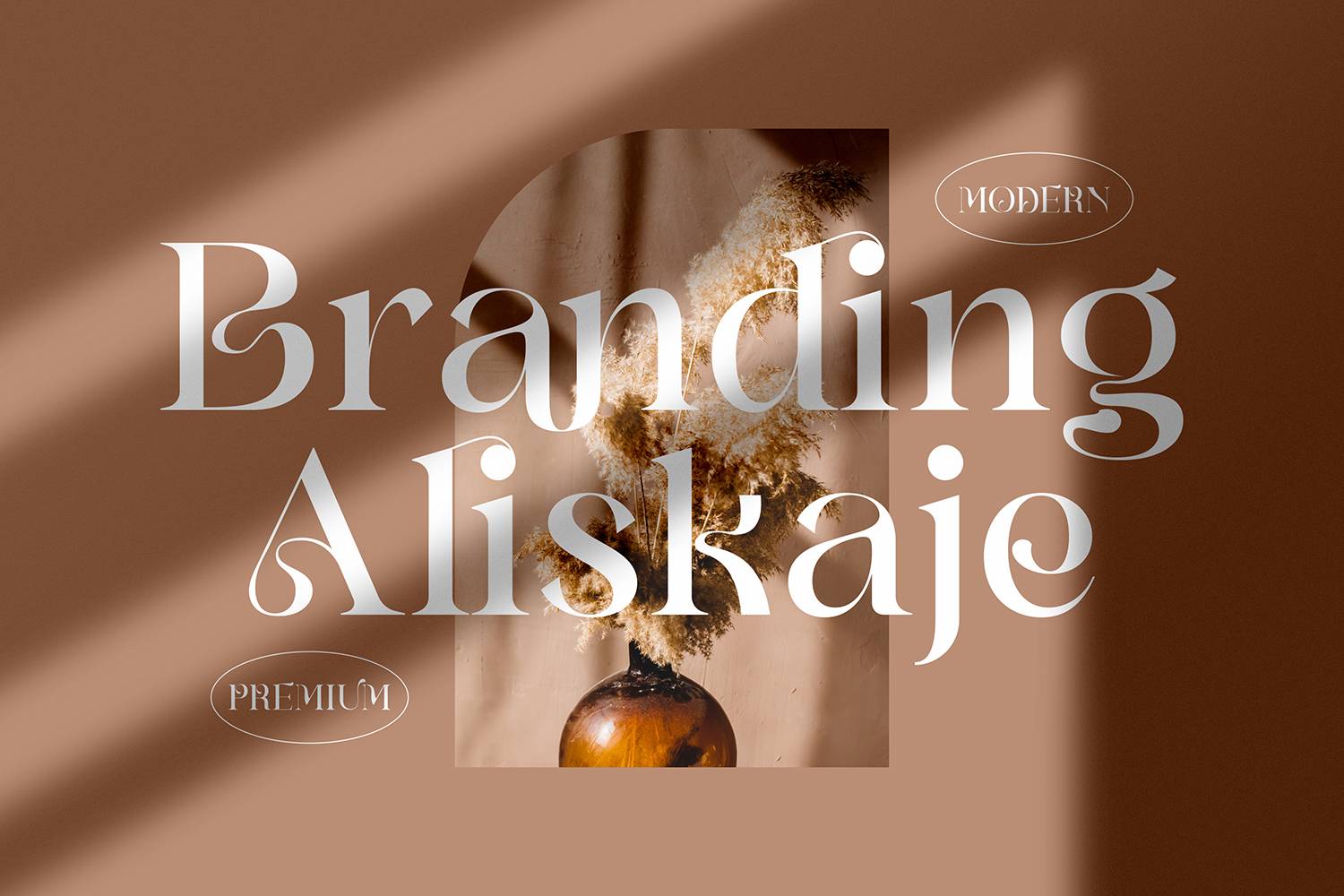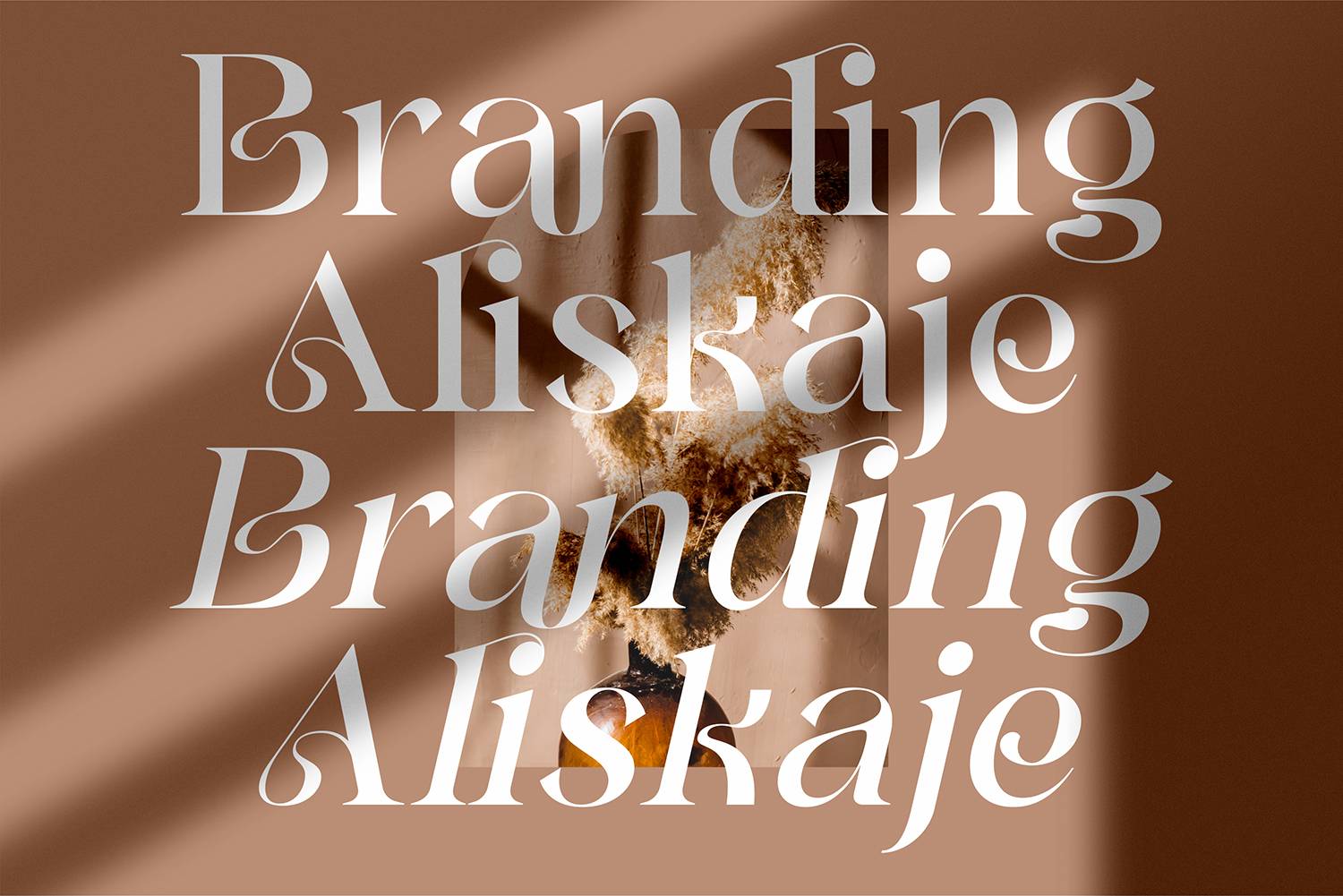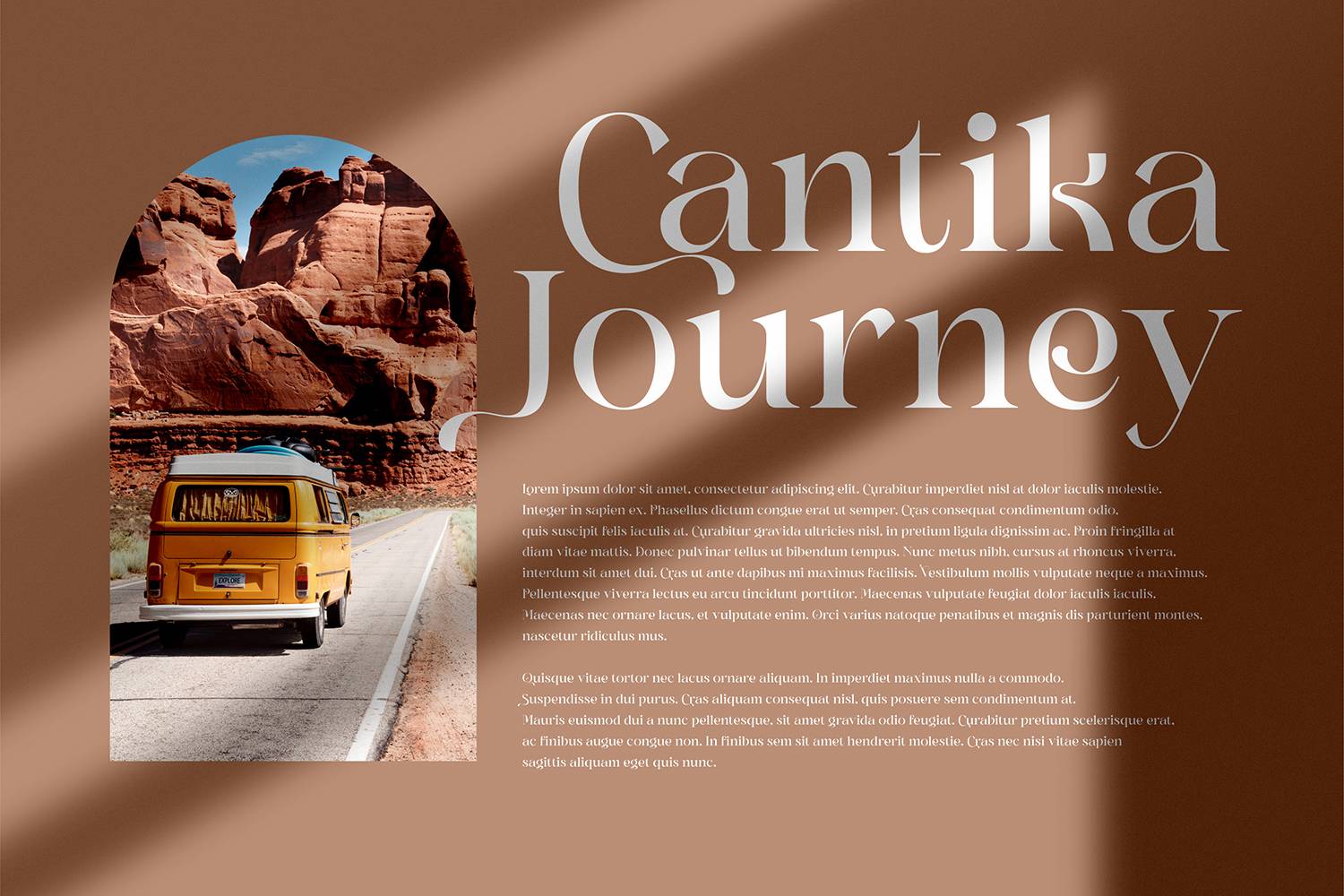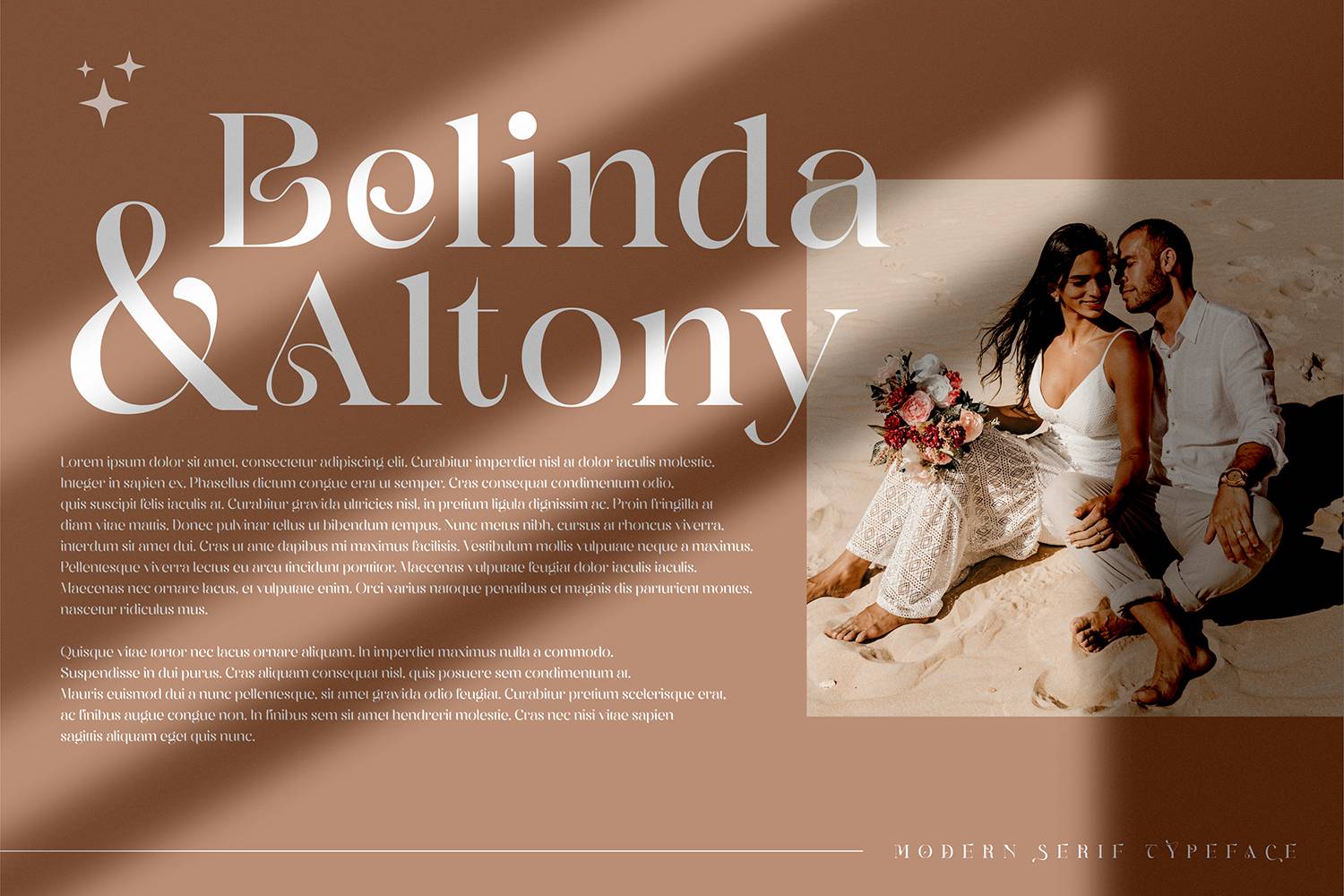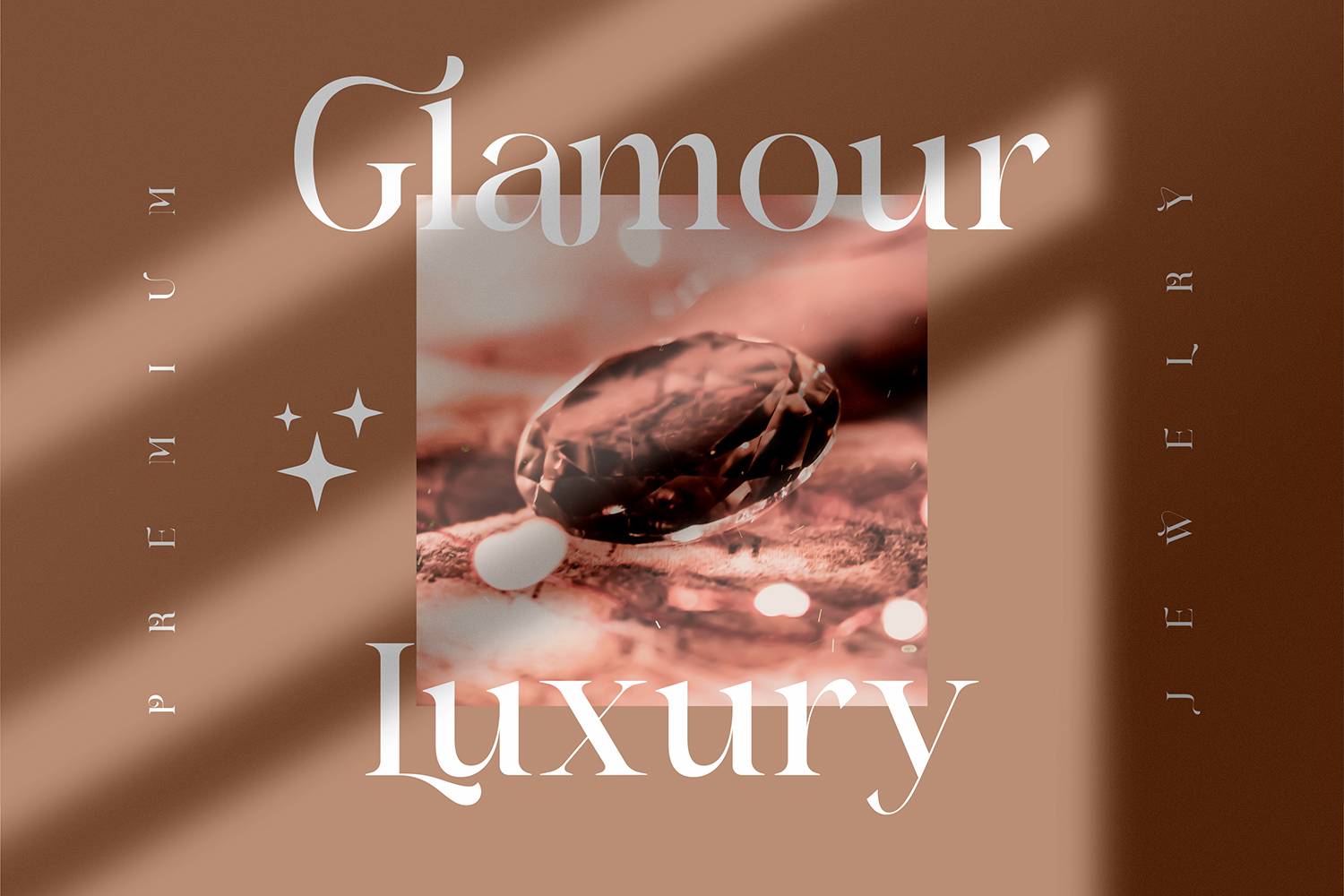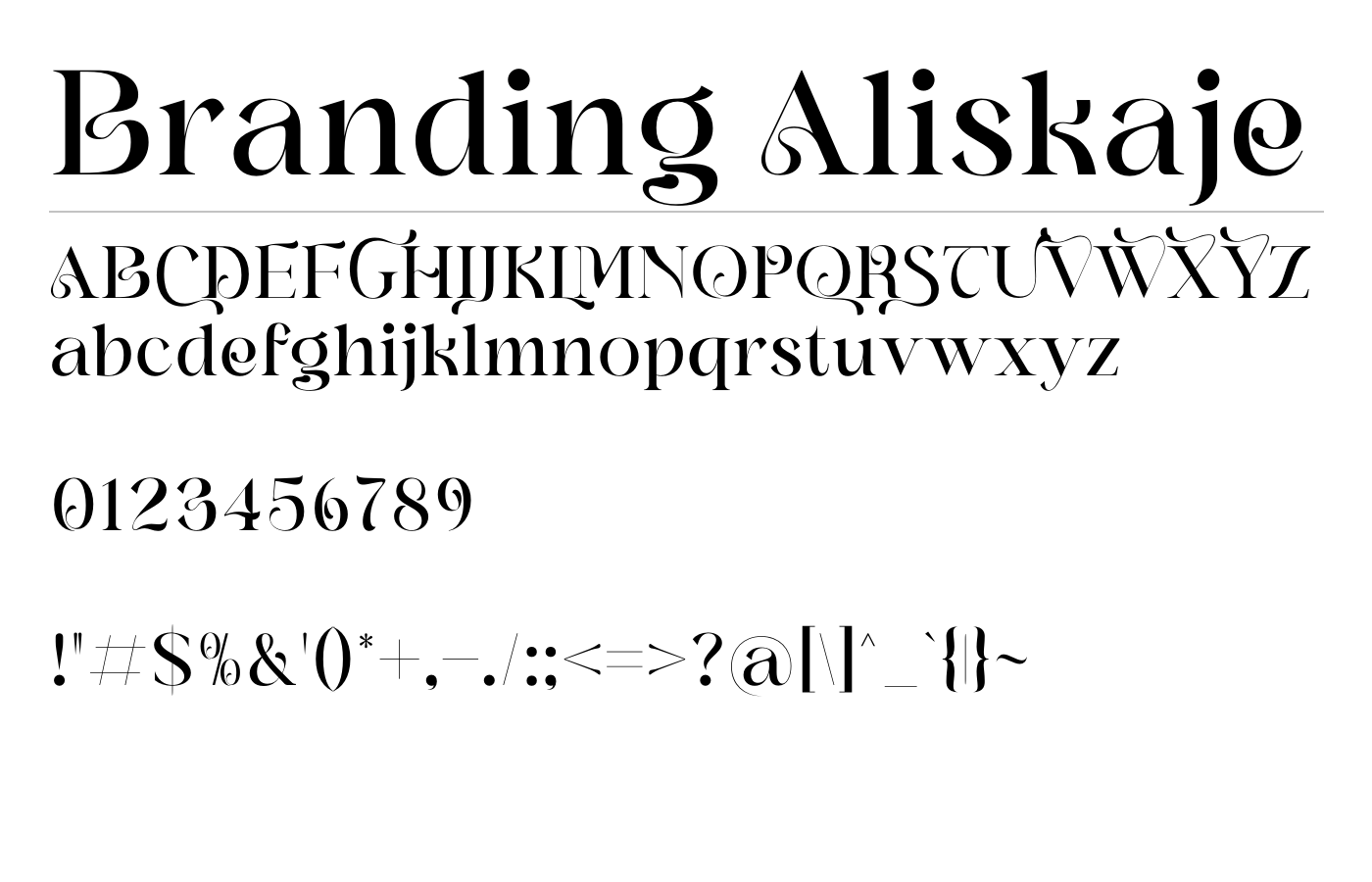
Branding Aliskaje is a stylish serif font with strong Didone influences, characterized by high contrast between thick and thin strokes and elegant, thin serifs. Its unique letterforms feature artistic flourishes and swashes that add a refined, sophisticated personality, making it ideal for luxury branding, fashion, and editorial headlines. This font works beautifully where bold elegance and a touch of creativity are desired, such as in logos and high-end packaging.
Branding Aliskaje Font
About Branding Aliskaje Font
| Font family | Branding Aliskaje Font |